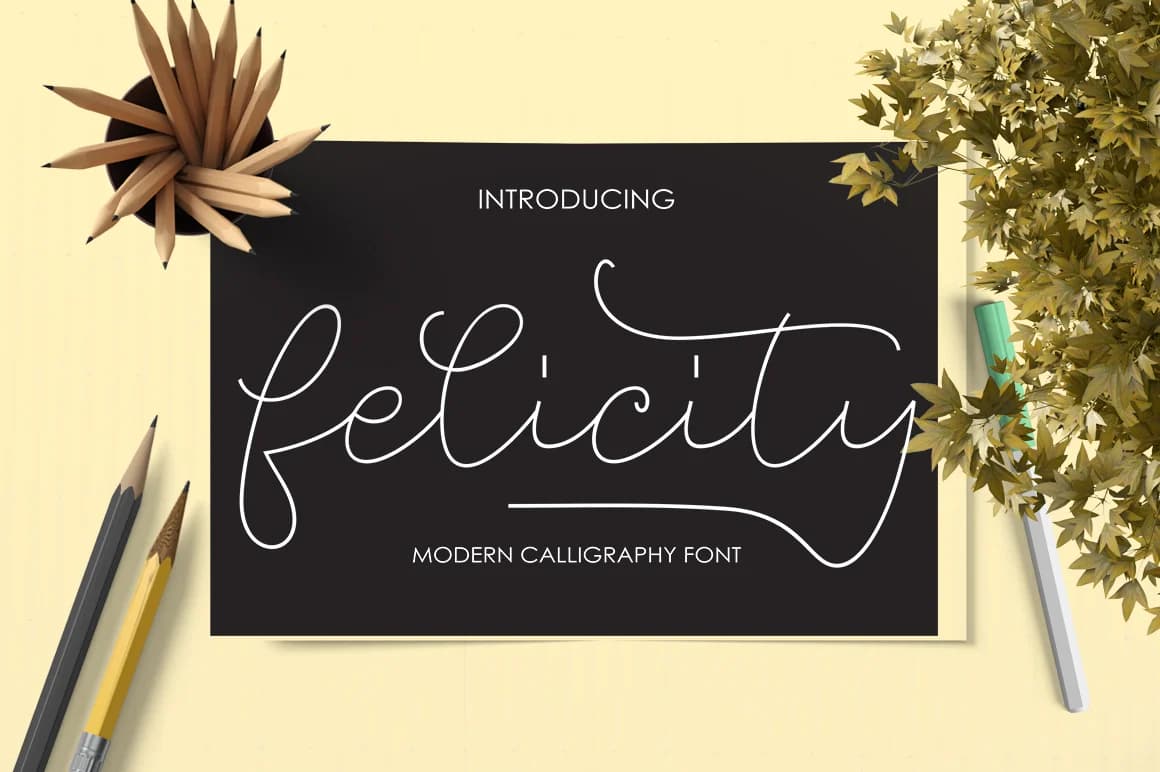
Felicity Font by Picatype Studio is an expressive handwritten script that brings authentic organic warmth to typography-driven design work. The typeface captures genuine hand-lettering character through naturally flowing strokes and organic letterforms, creating a conversational yet refined aesthetic that works seamlessly across both digital and print applications. This versatile script truly excels on wedding invitation suites and celebration stationery, where its elegant curves add personal warmth and visual interest to each piece. It performs beautifully on boutique beauty product labels and small-batch artisanal packaging, where the hand-lettered quality conveys genuine craftsmanship and authentic care. The two available styles, Felicity Bold for confident statements and Felicity Script for flowing body text, give you multiple design options to build visual hierarchy without needing additional typefaces. The script maintains clear legibility whether displayed large on event materials or at smaller sizes on product packaging, making it adaptable across different design contexts and scales. Whether you're developing an upscale brand identity, creating artist collaboration merchandise, or designing luxury cosmetics branding, Felicity Font's natural character helps establish an approachable yet polished voice that genuinely connects with your audience. Get Felicity Font on Creative Fabrica and bring this hand-lettered quality to your next creative project.
- Elegant, Flowing, Felicity Bold
Felicity Font is a script font that shines as a display or heading face. Pair it with a clean sans-serif or serif font for body text β the contrast creates a clear hierarchy while the two styles stay balanced and easy to read.
Felicity Font